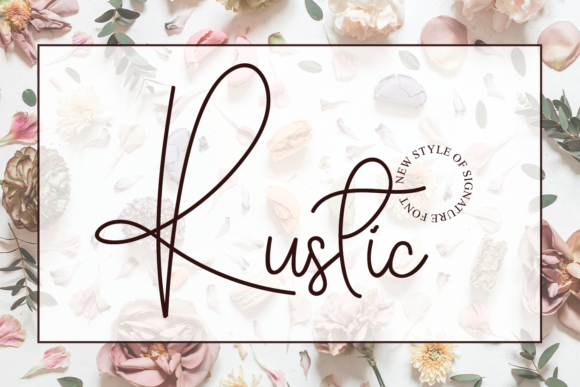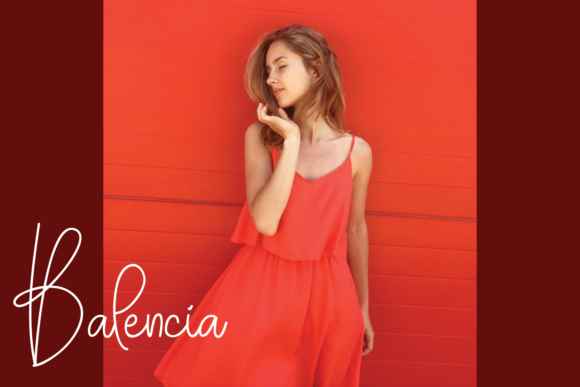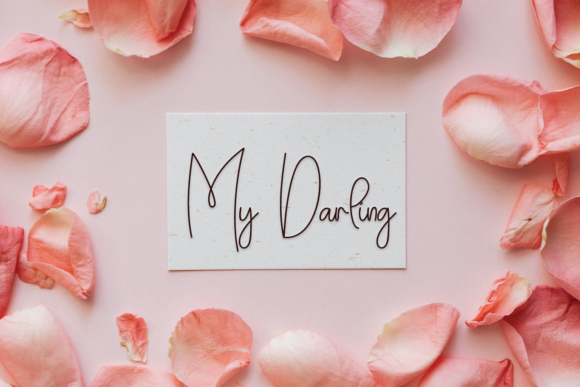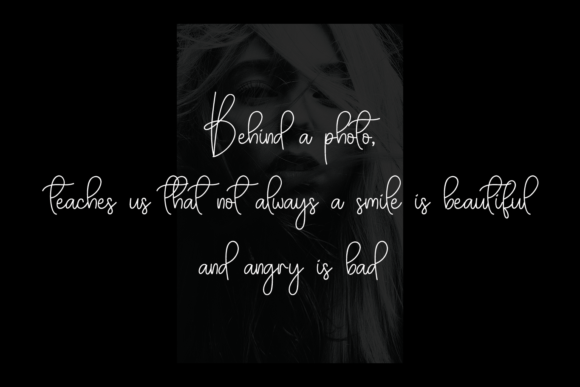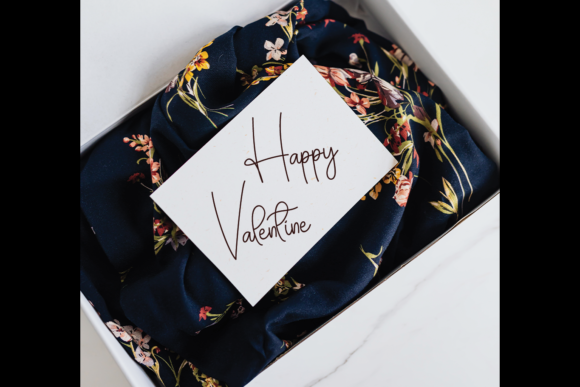
Rustic Font
About Rustic Font
Rustic is a stylish and thin lettered handwritten font, masterfully designed to become a true favorite. It maintains its classy calligraphic influences while feeling contemporary and fresh.